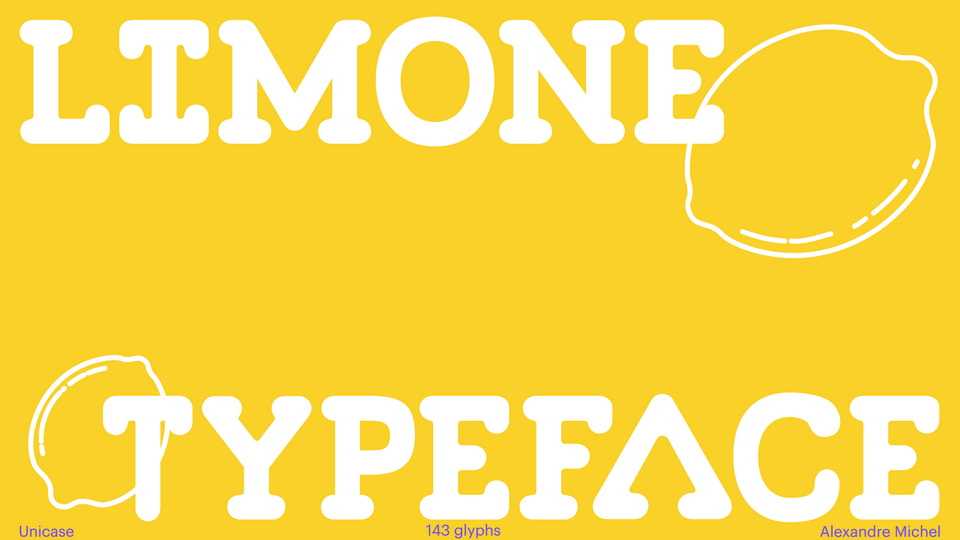
Limone Font › Fontesk – Fonte Grátis
Download Limone font, an open-source typeface, unicase, juicy, and very fresh!! Its boldness and roundness combined with geometric proportions is perfect for adding a warm and soft charm to your next project.
Designer: Alexandre Michel